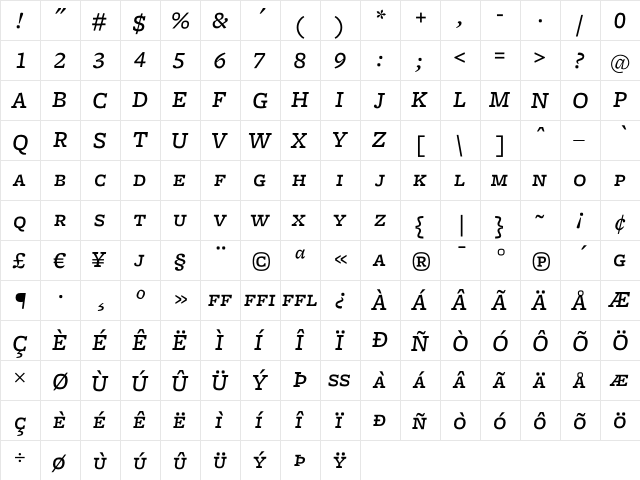
Freight Micro Medium Italic SC Font Preview
Freight Micro Medium Italic SC
Freight Micro Medium Italic SC Font Details
| Style | Micro Medium Italic SC |
| Foundry | Joshua Darden & Phil's Fonts, Inc |
| Designer | Joshua Darden |
Design Context for Freight Typeface
Freight offers clean, dependable letterforms without strong stylistic allegiance, making it a practical choice for designers who need flexibility. The dynamic lean of this cut emphasises speed and emphasis in any layout.
Pro Tip: Use Freight for emphasis, pull quotes, and subheadings where its slanted energy can add rhythm to the layout.